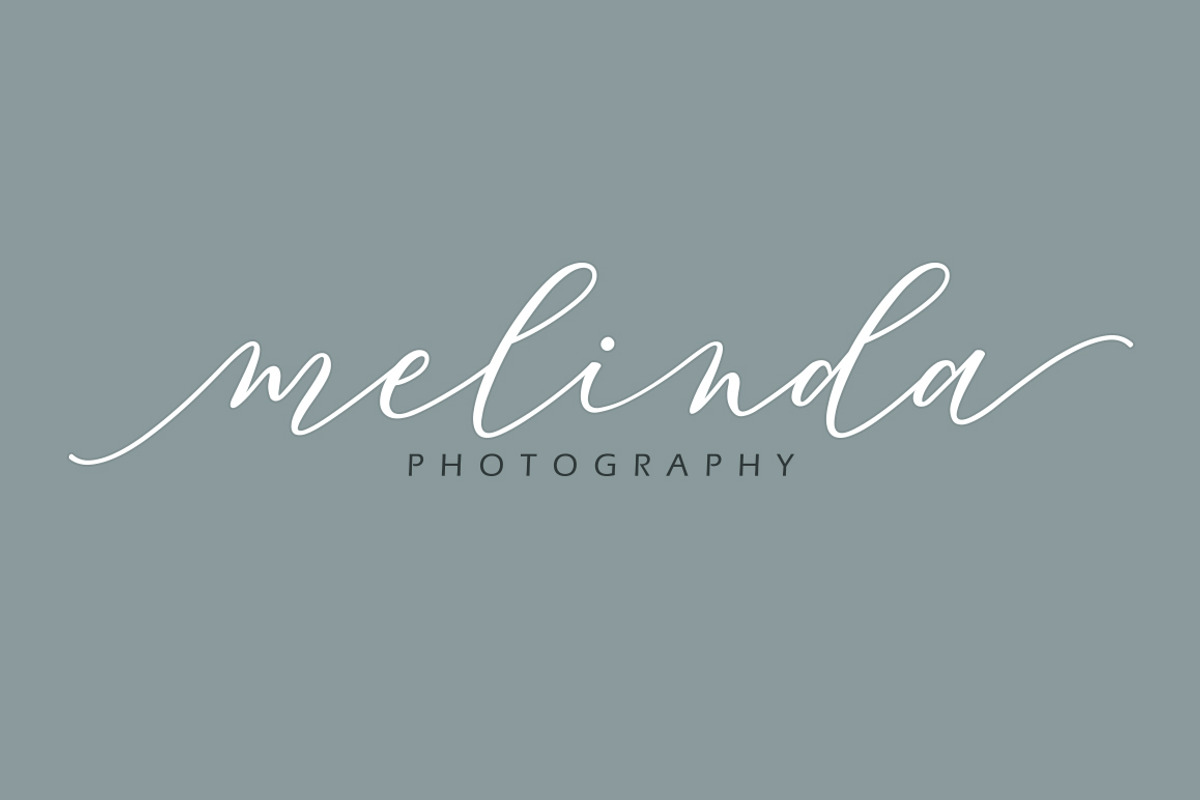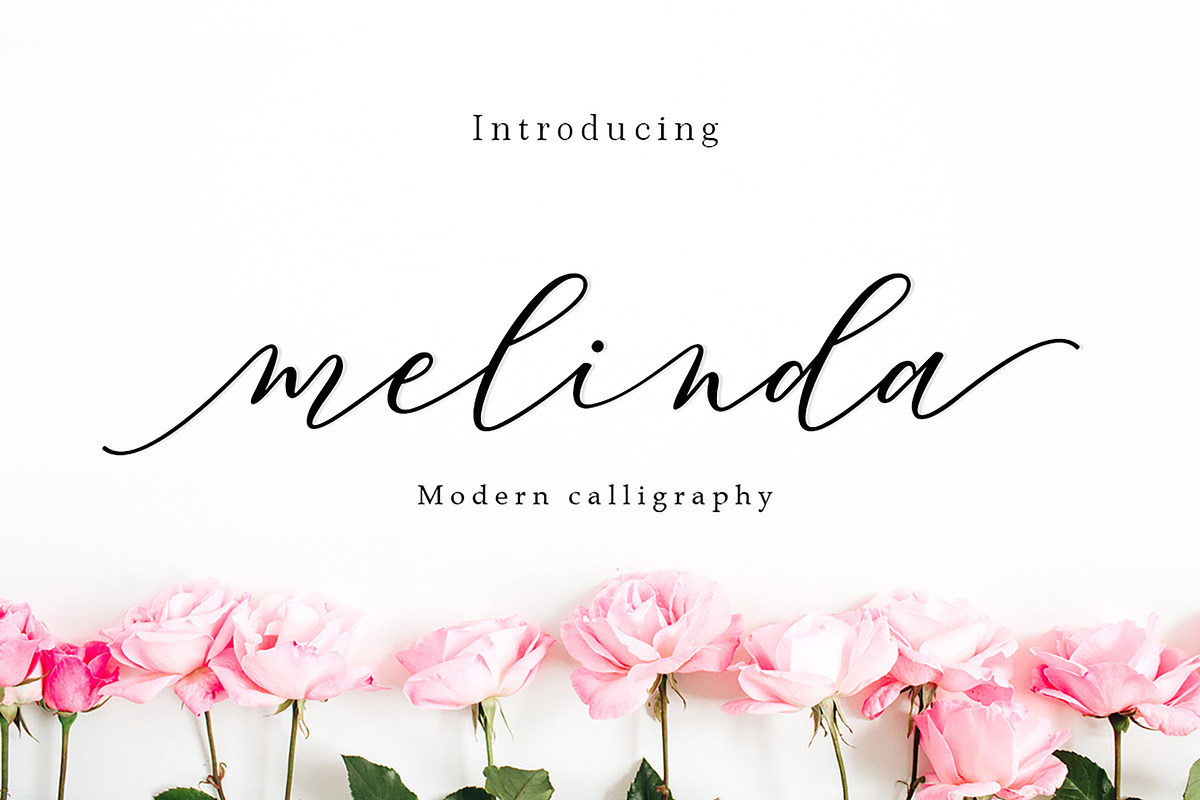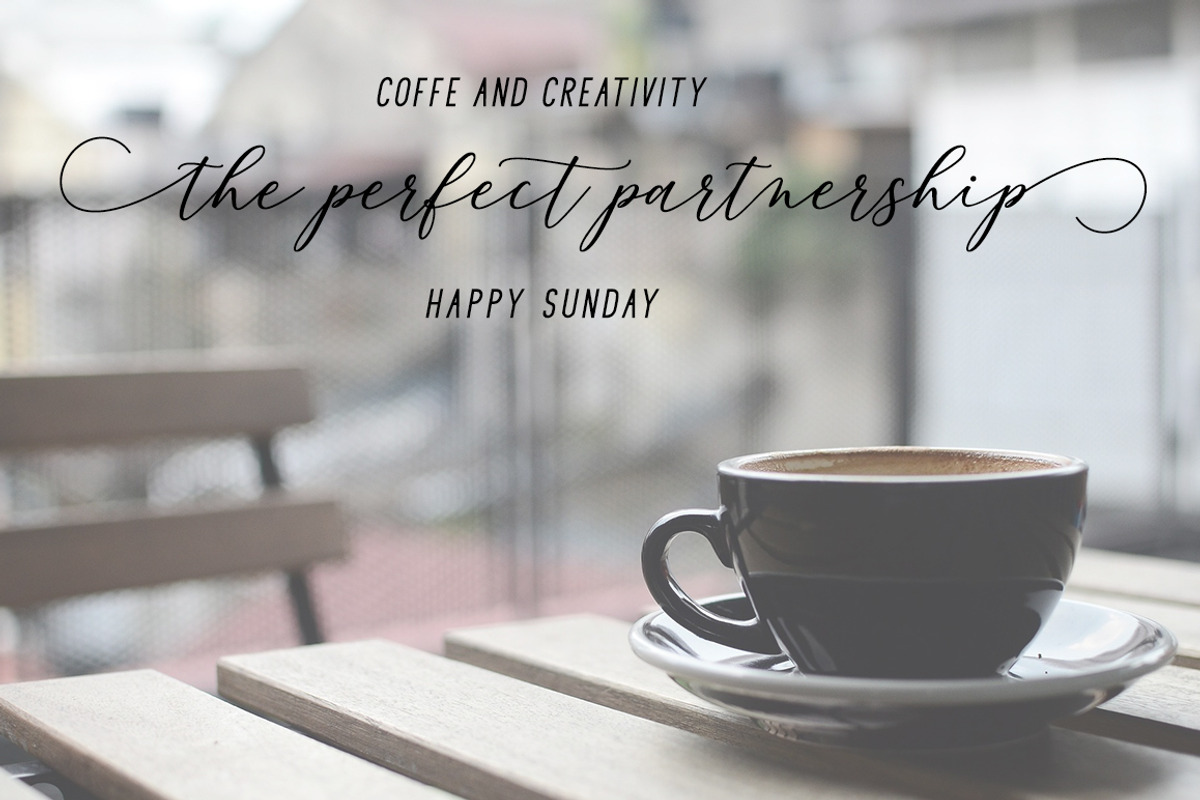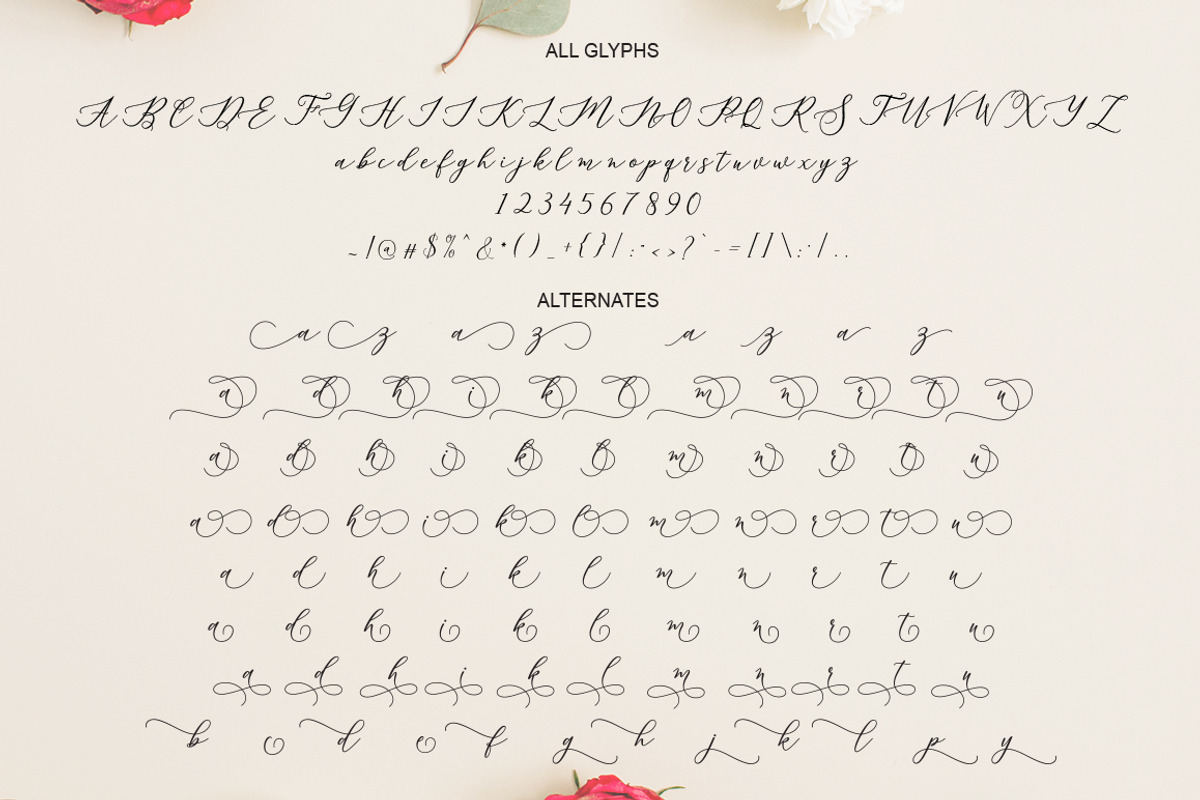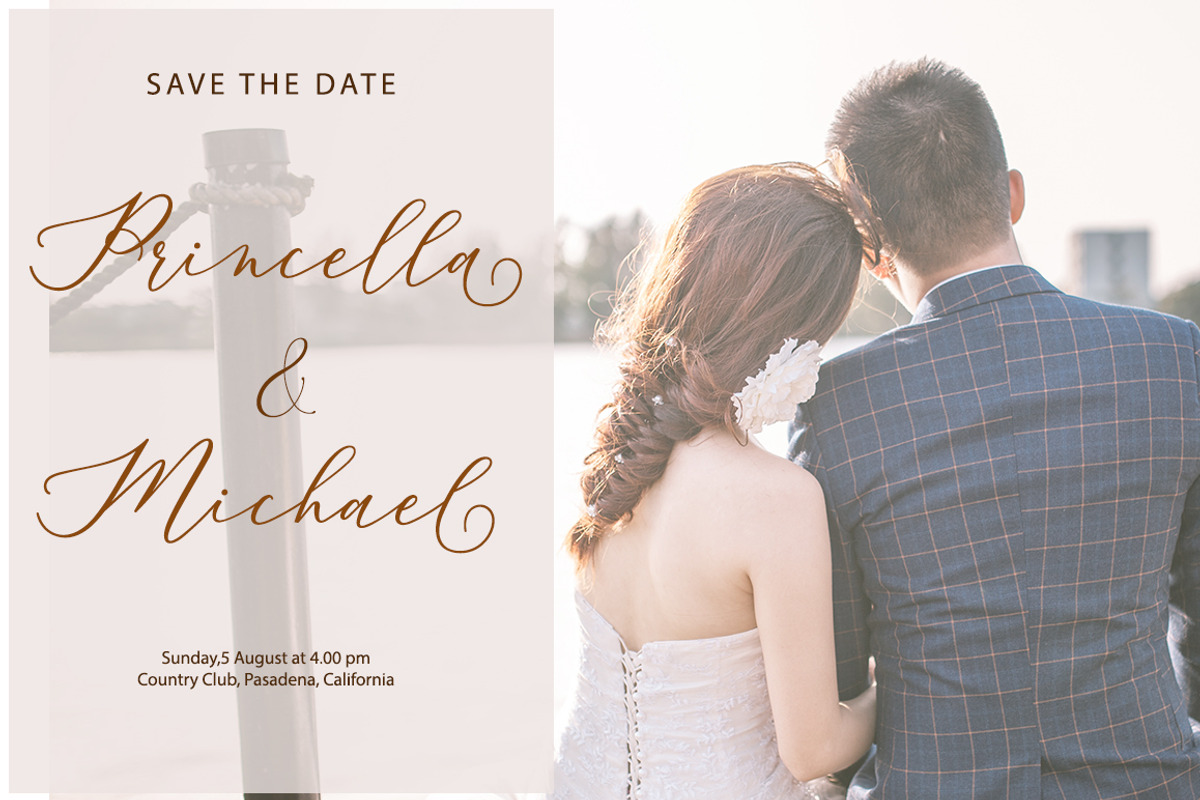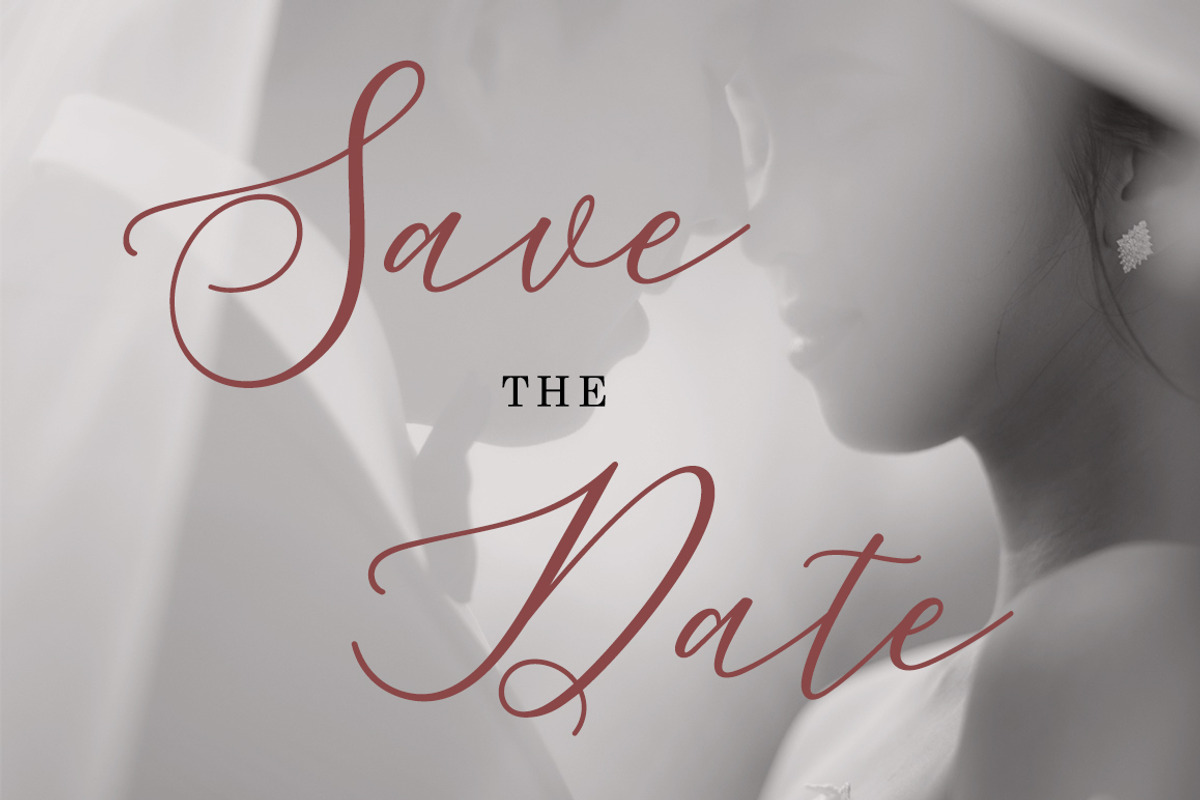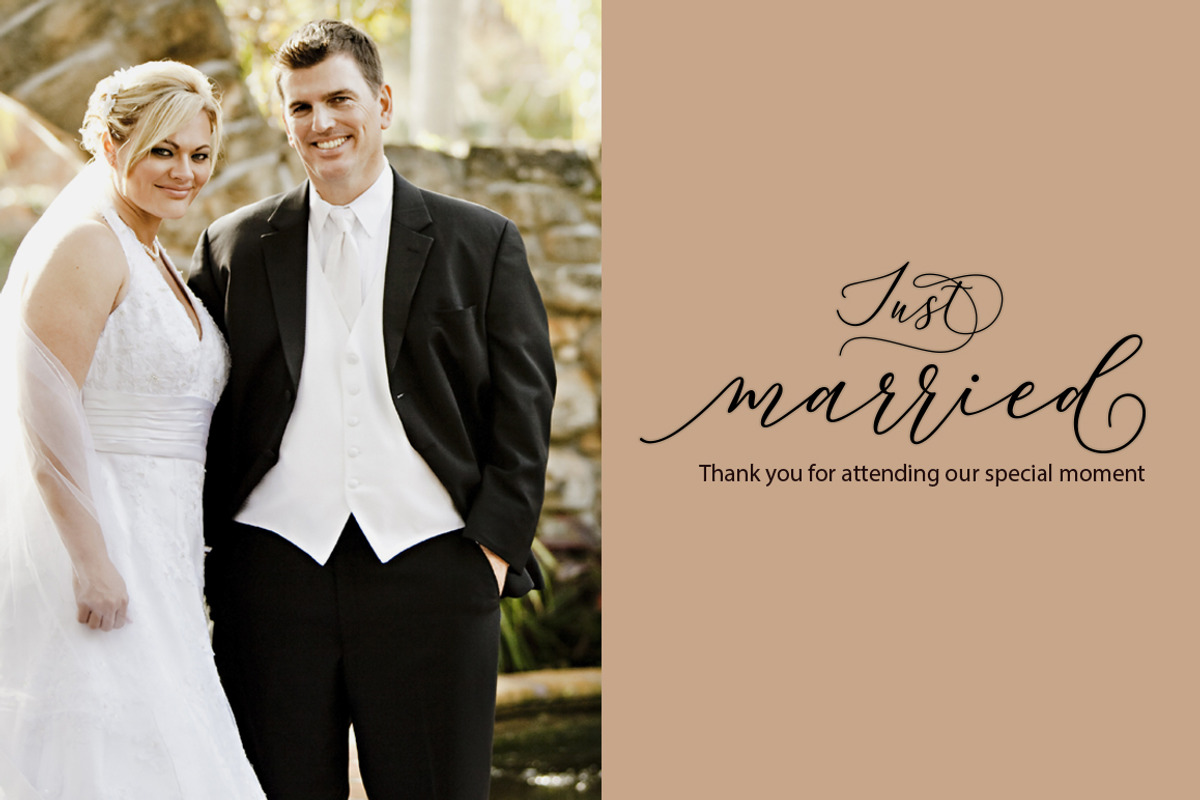
Melinda
The Melinda Script is a authentic, fresh script. This font has a calligraphy style, features stunning decorative letters and has a dancing baseline.